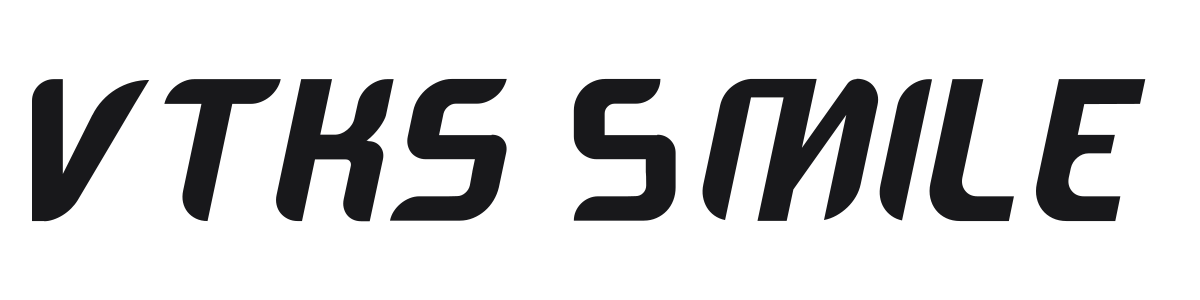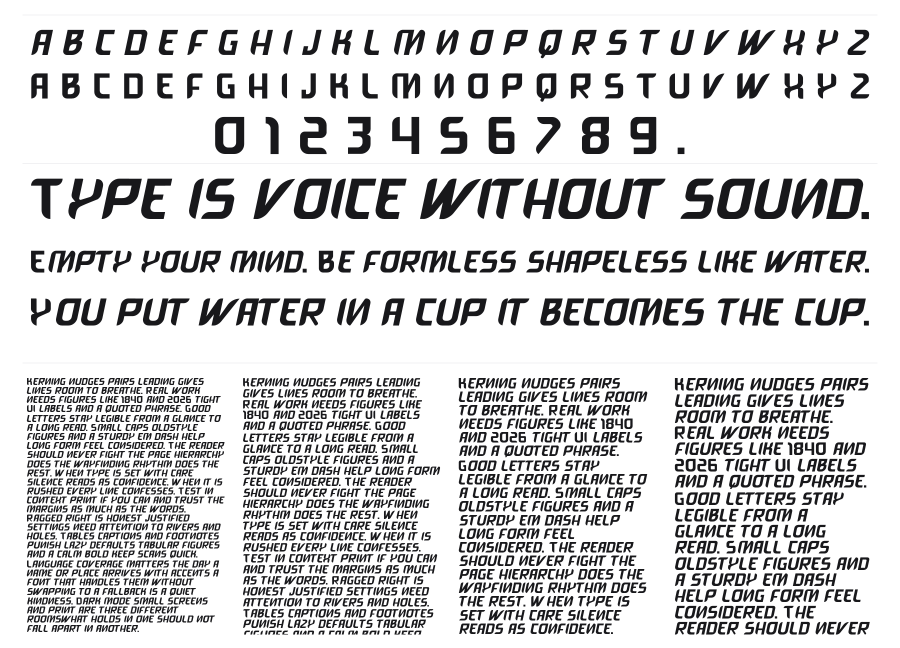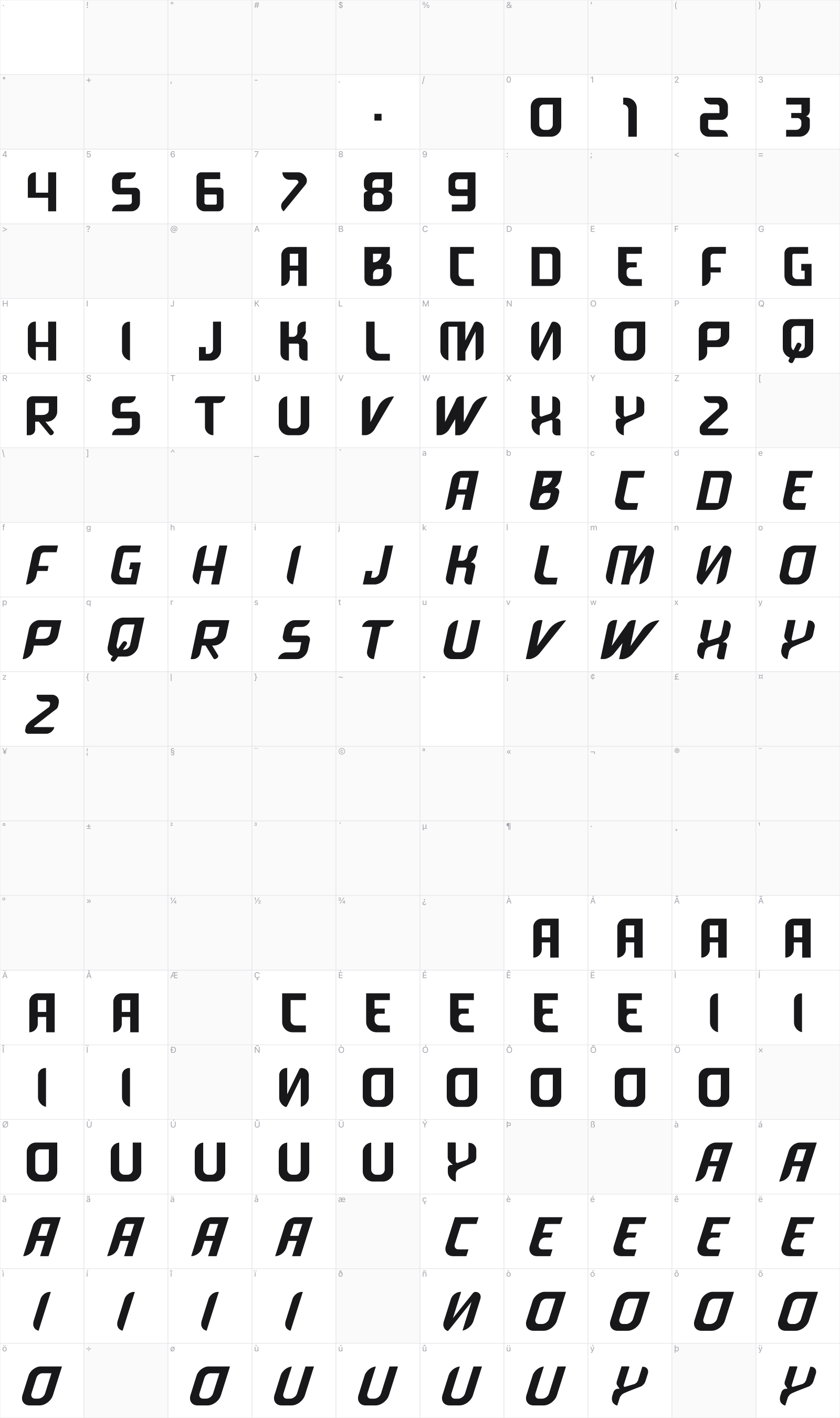
Vtks Smile
Vtks Smile is a bold condensed italic sans with sharp diagonal stroke terminals and heavily angular geometry. Every character is cut at an angle, giving the font a kinetic, high-speed personality rooted in retro sci-fi and sports graphics. It reads instantly at large sizes and carries plenty of attitude.